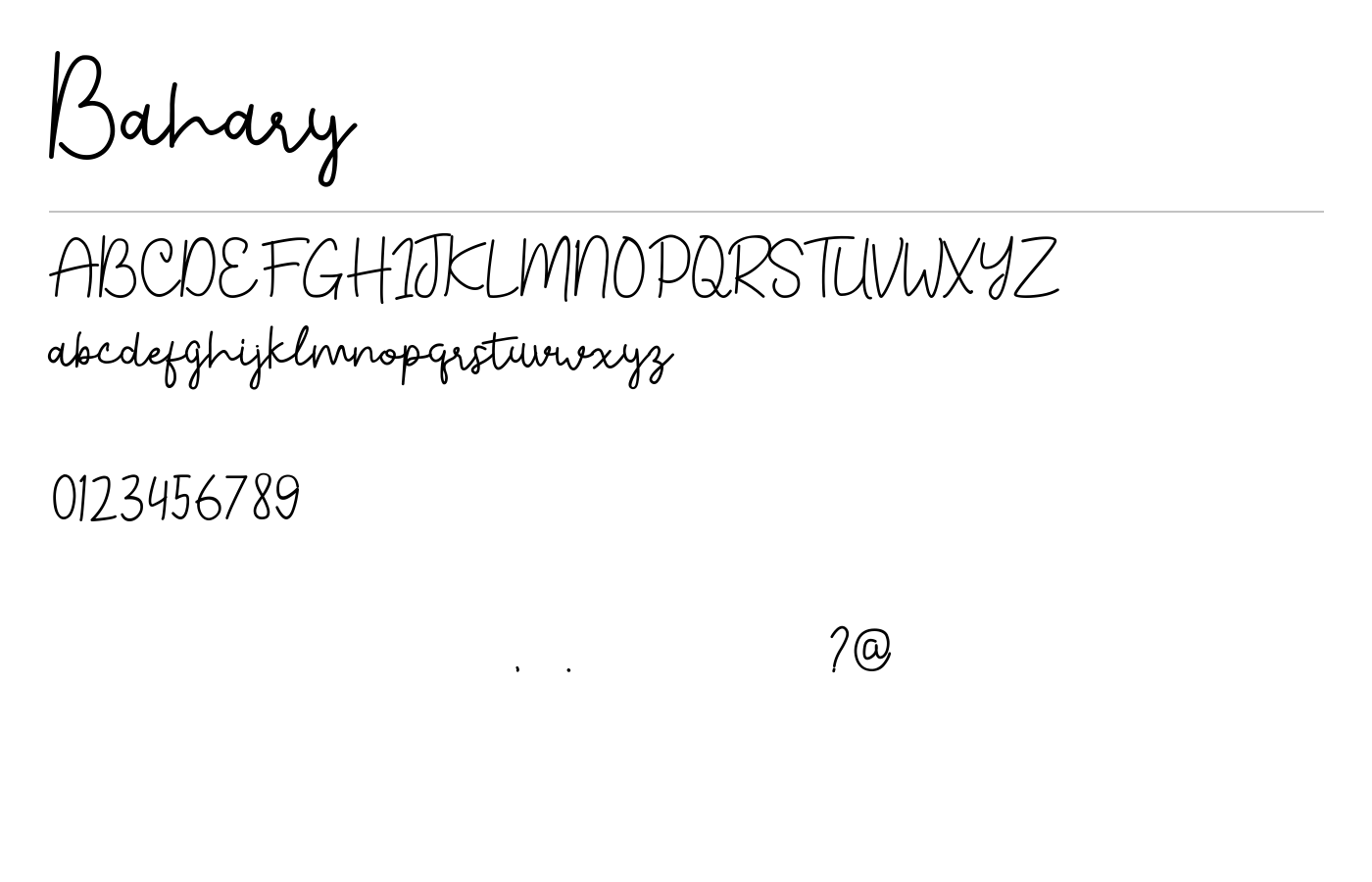
Bahary is a light, handwritten script font that features tall, narrow letterforms with a casual and playful touch. Its thin, slightly irregular strokes and unique character shapes give it a friendly, personal feel, making it ideal for creative projects, invitations, and branding that seeks a warm and approachable personality. This font works best in headlines or short texts where a natural, handwritten style adds charm and character.
Bahary Font
About Bahary Font
| Font family | Bahary Font |
| Designer | Andri Ardianto - Madatype Studio |